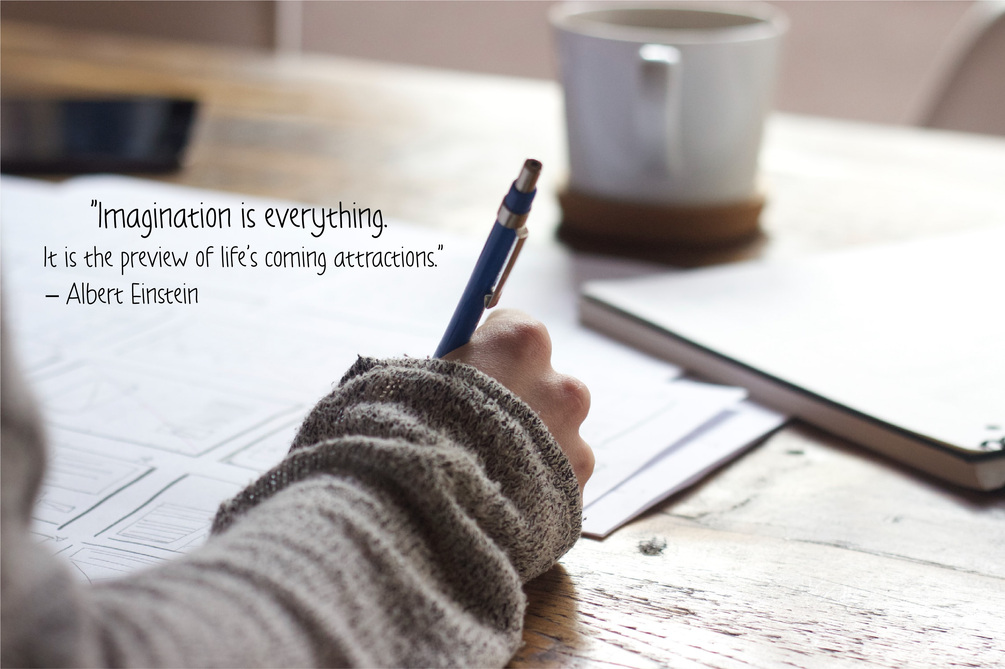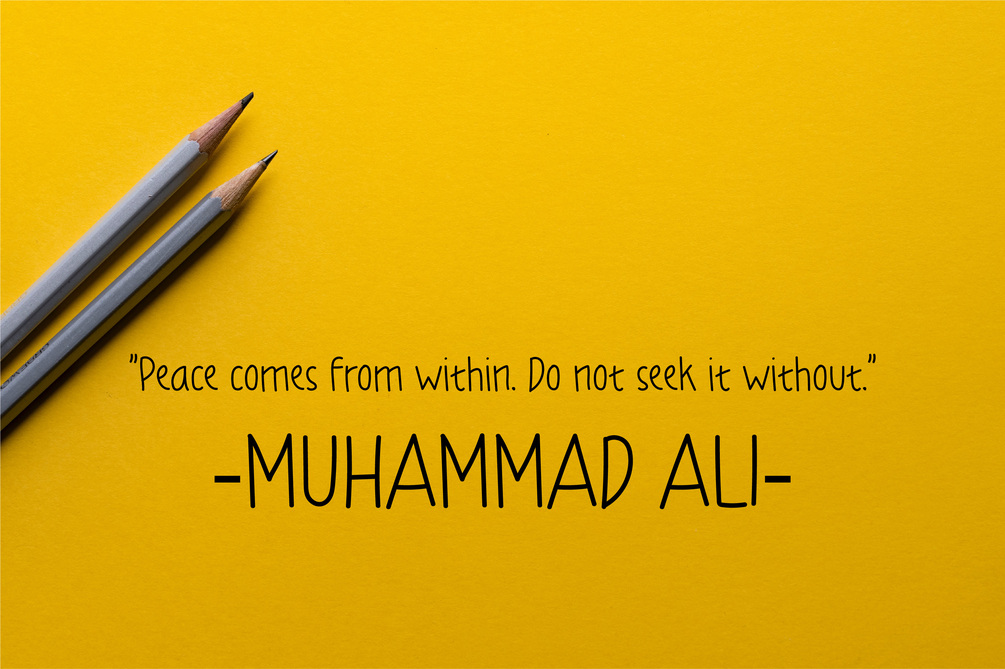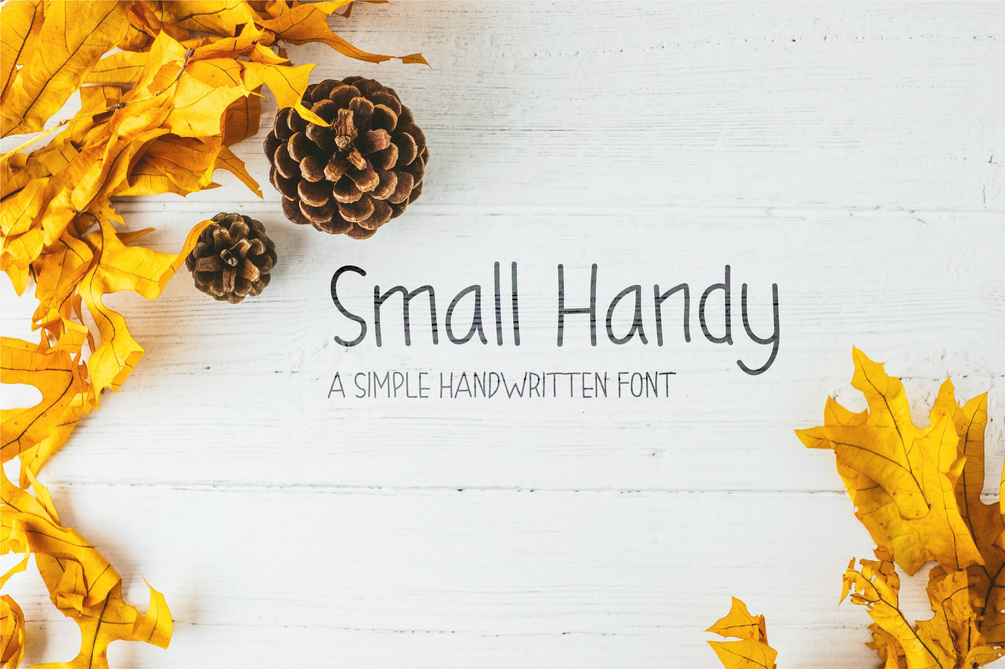
Small handy font
Small Handy is a simple and minimalist handwritten font. It is the best choice for creating eye catching logos, branding and quotes. Fall in love with its incredibly versatile style and use it to create spectacular designs! Pay as you want!